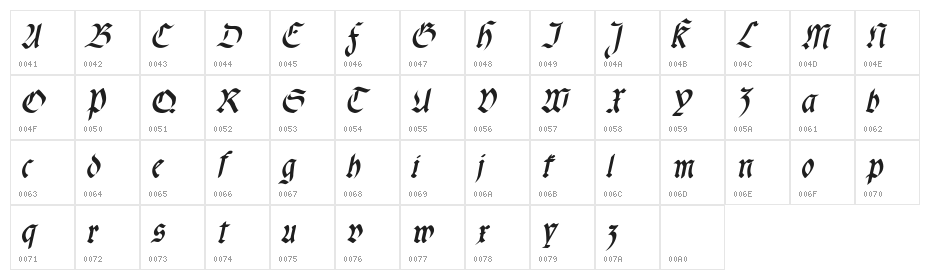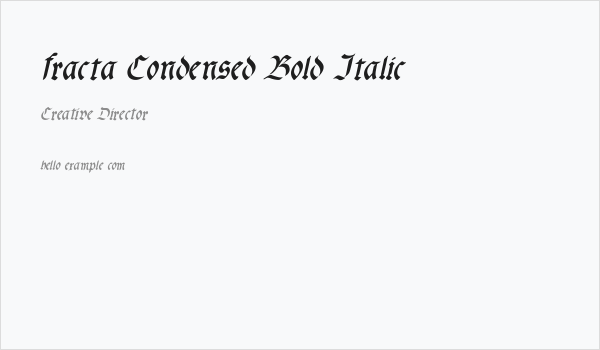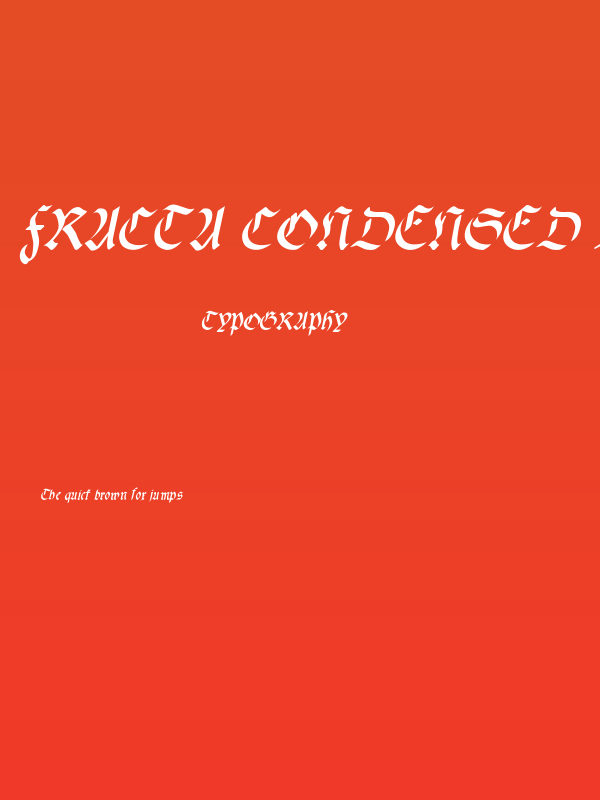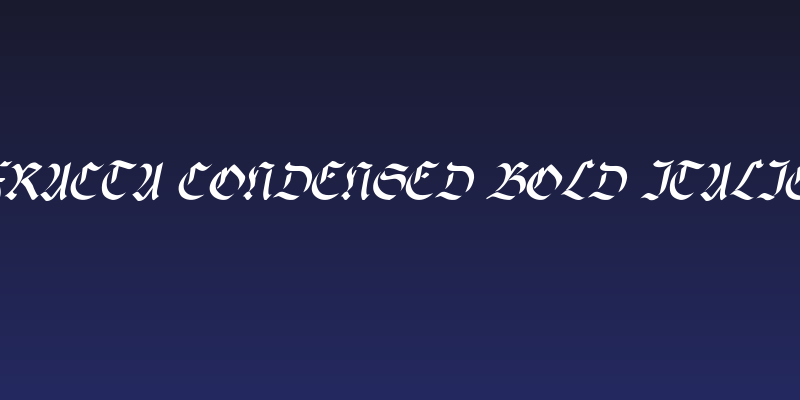
fracta Condensed Bold Italic Font
fracta Condensed Bold Italic Description
This font exhibits a classic blackletter style with a modern twist, characterized by its bold and italicized form. The letters are condensed, giving a compact appearance while maintaining legibility. The strokes are thick and angular, with sharp edges and pointed terminals, typical of traditional blackletter fonts. The uppercase letters are particularly ornate, with flourishes and intricate details that add a decorative touch. The lowercase letters maintain the same boldness and angularity, ensuring consistency throughout the typeface. This font is ideal for projects that require a historical or gothic aesthetic, such as invitations, posters, or branding for vintage-themed products.
| Proposed Projects | Ideal for vintage-themed branding, gothic invitations, and decorative posters. |